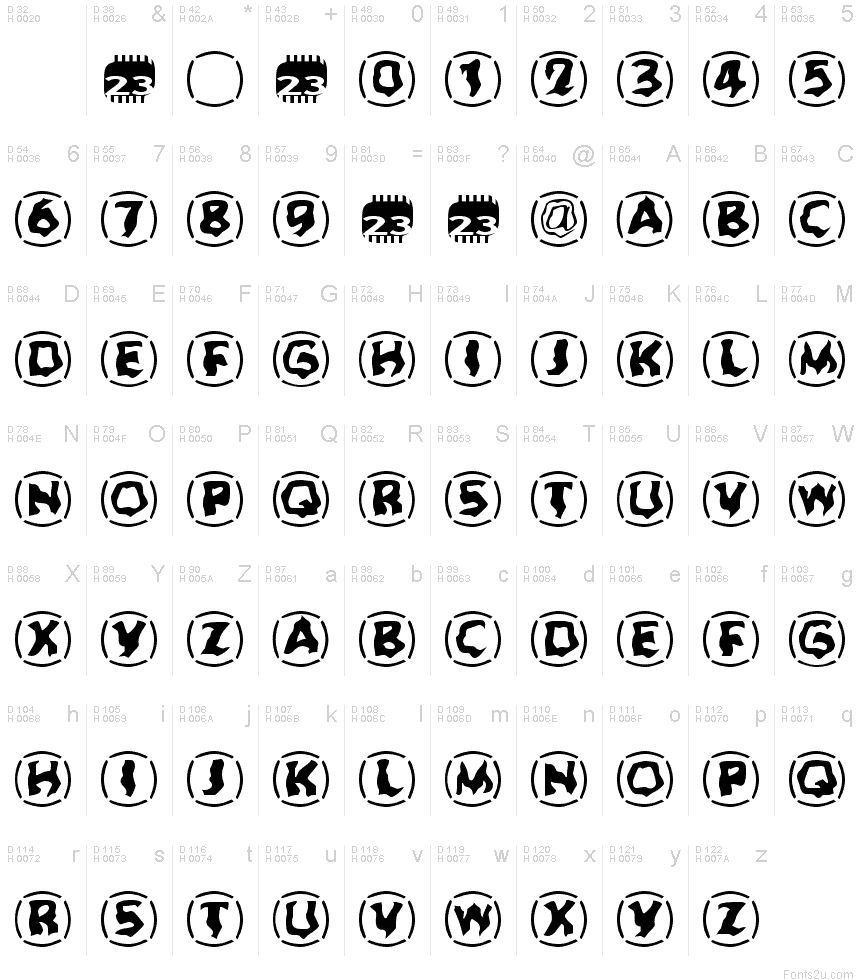
Zone23_Dreamtime 923
Zone23 Dreamtime 923 font by ZONE23 brings a free, decorative look built from rough black letterforms framed by hand-drawn circular borders. The texture feels tribal and slightly primitive, with an uneven, inked energy that turns short words into graphic elements rather than quiet text.
Zone23 Dreamtime 923 works best where mood matters first: posters, album art, game titles, festival flyers, logos, merch, social graphics, and themed packaging. This free font has a punchy rhythm and a carved, ritual feel, so it shines at larger sizes and pairs well with a plain sans serif when you need the headline to carry all the atmosphere.